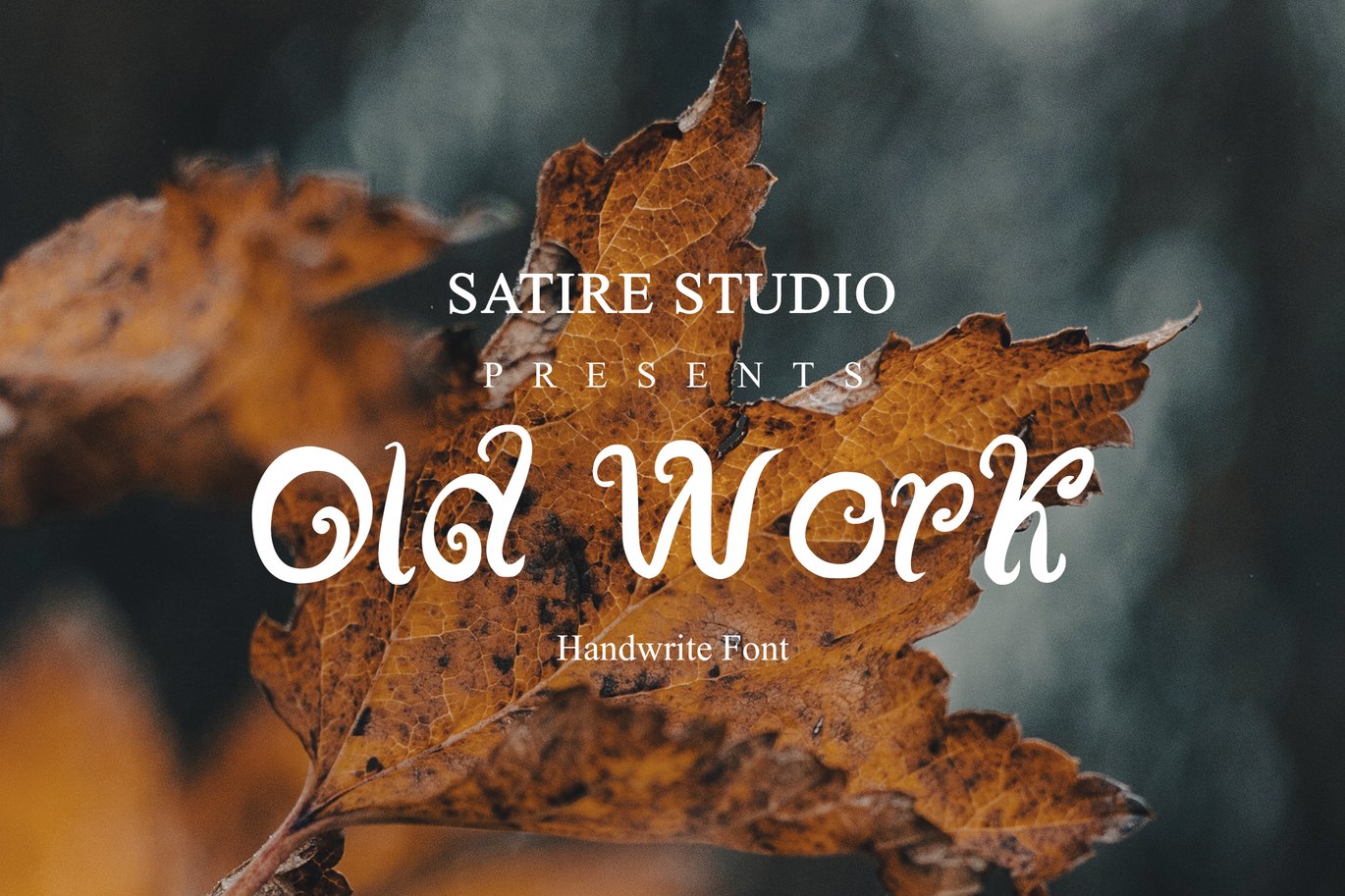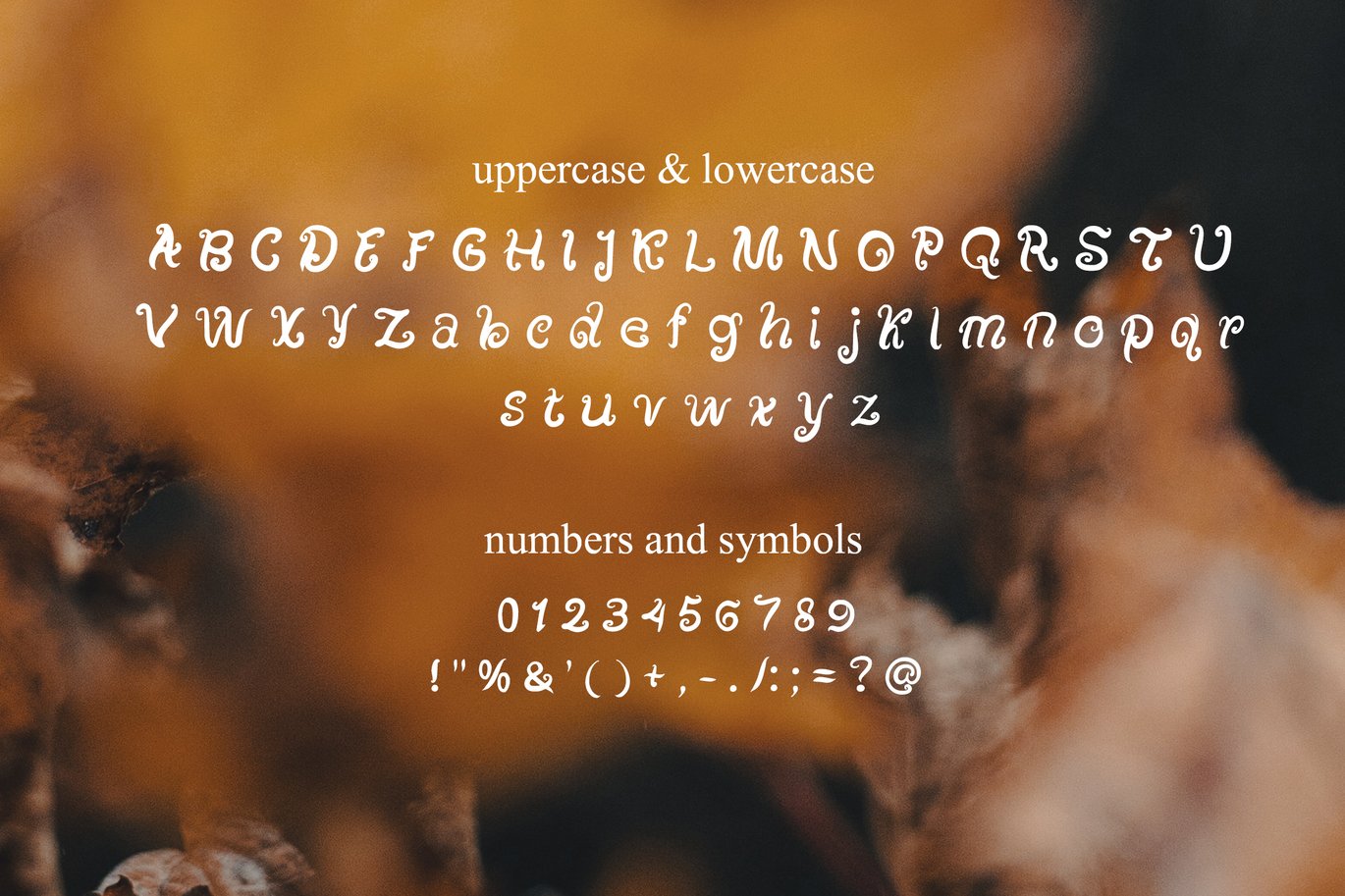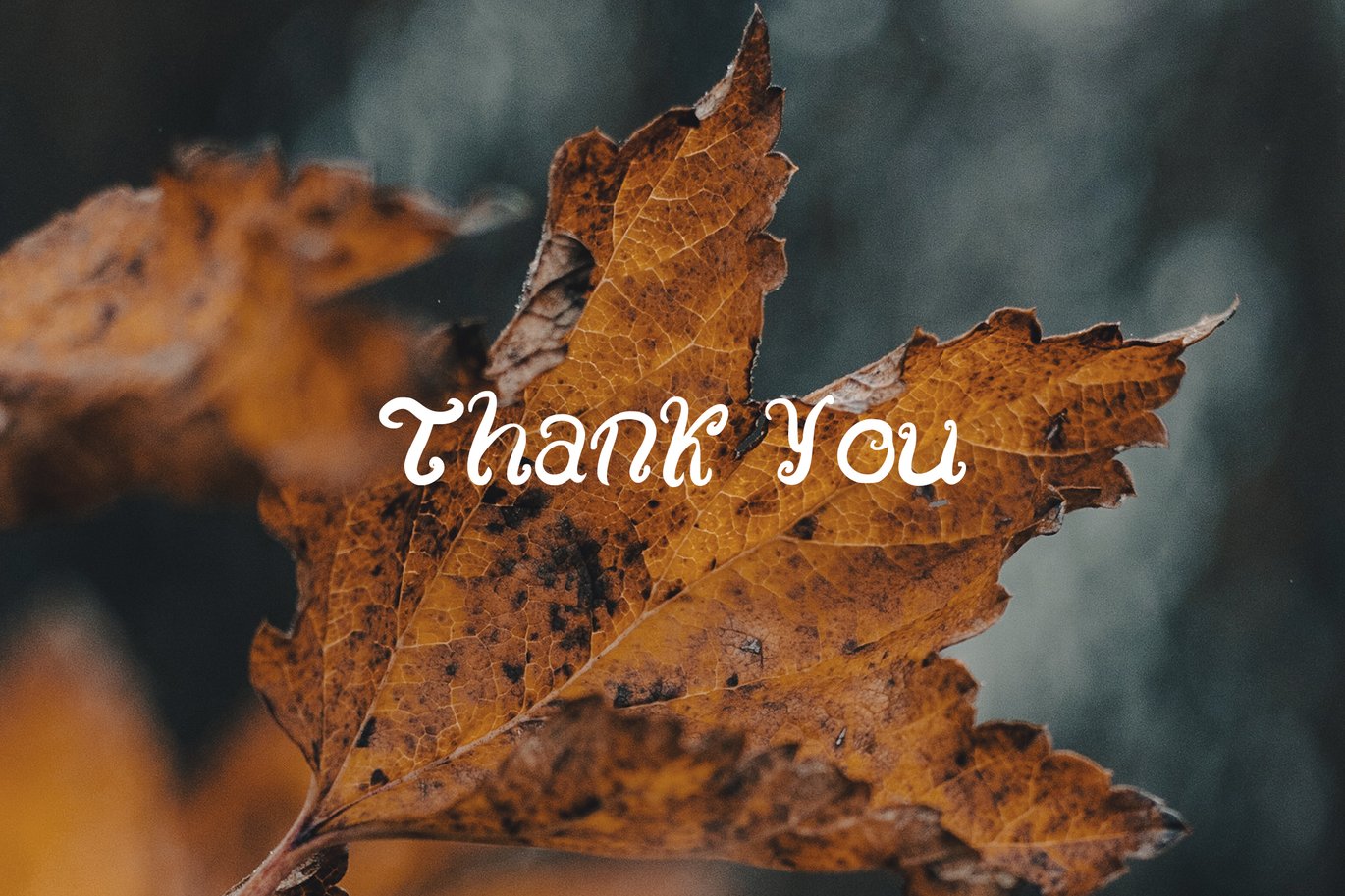
Old Work – Handwritten Font
Old Work | Scary Font, So beautiful on invitation like greeting cards, branding materials, business cards, quotes, posters, and more!